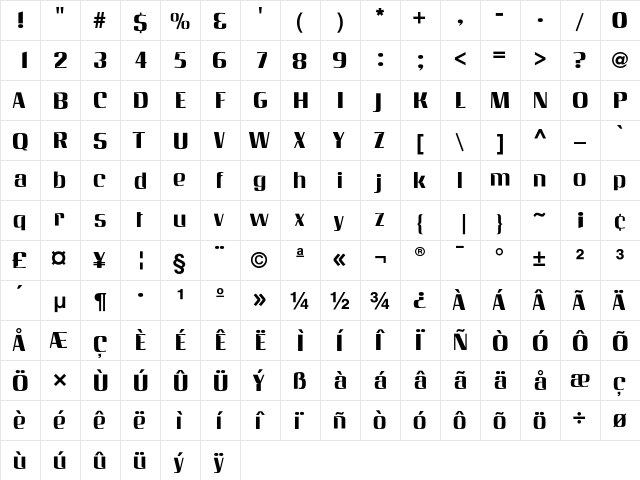
Inverserif Normal
Design Context for Inverserif Typeface
Inverserif brings classic typographic sensibility to the table — its serifs and measured letterforms reflect centuries of print heritage.
Pro Tip: Set Inverserif with slightly loose tracking in headlines to let each letterform's detail read clearly at display sizes.